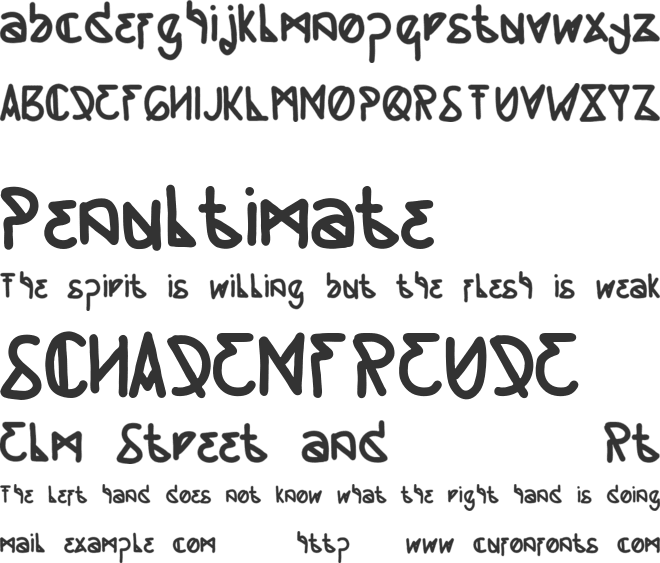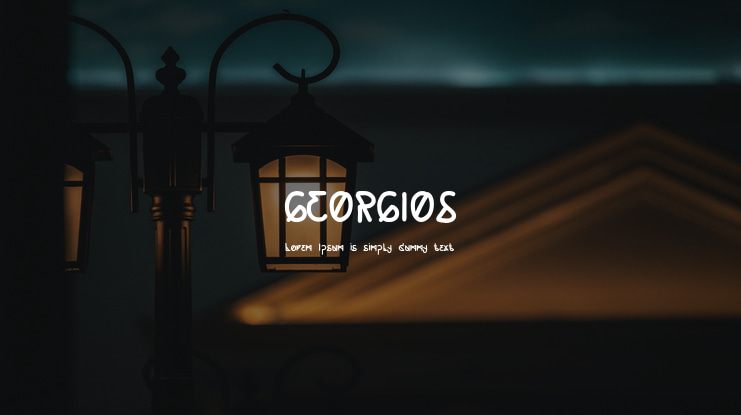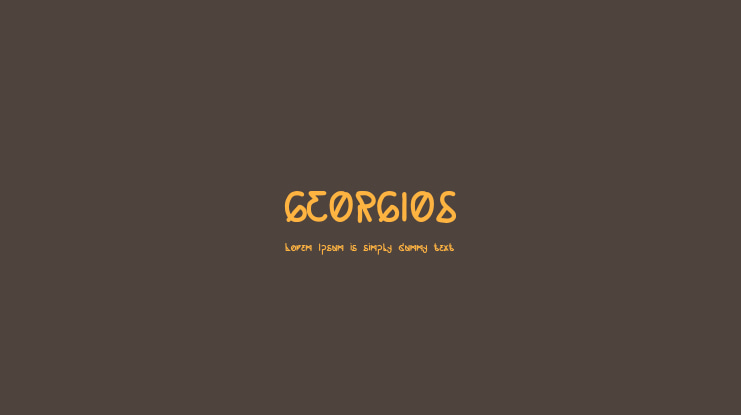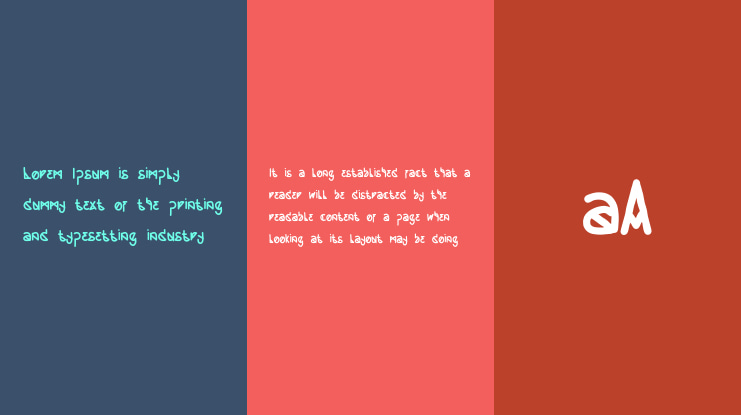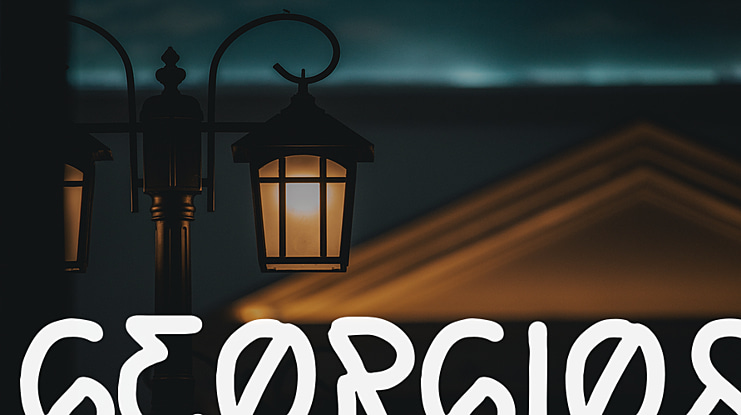
GEORGIOS Font
Georgios is a fun and incredibly unique display font. Whether you’re using it for crafting, digital designing, presentations or greeting cards making, it’s perfect!